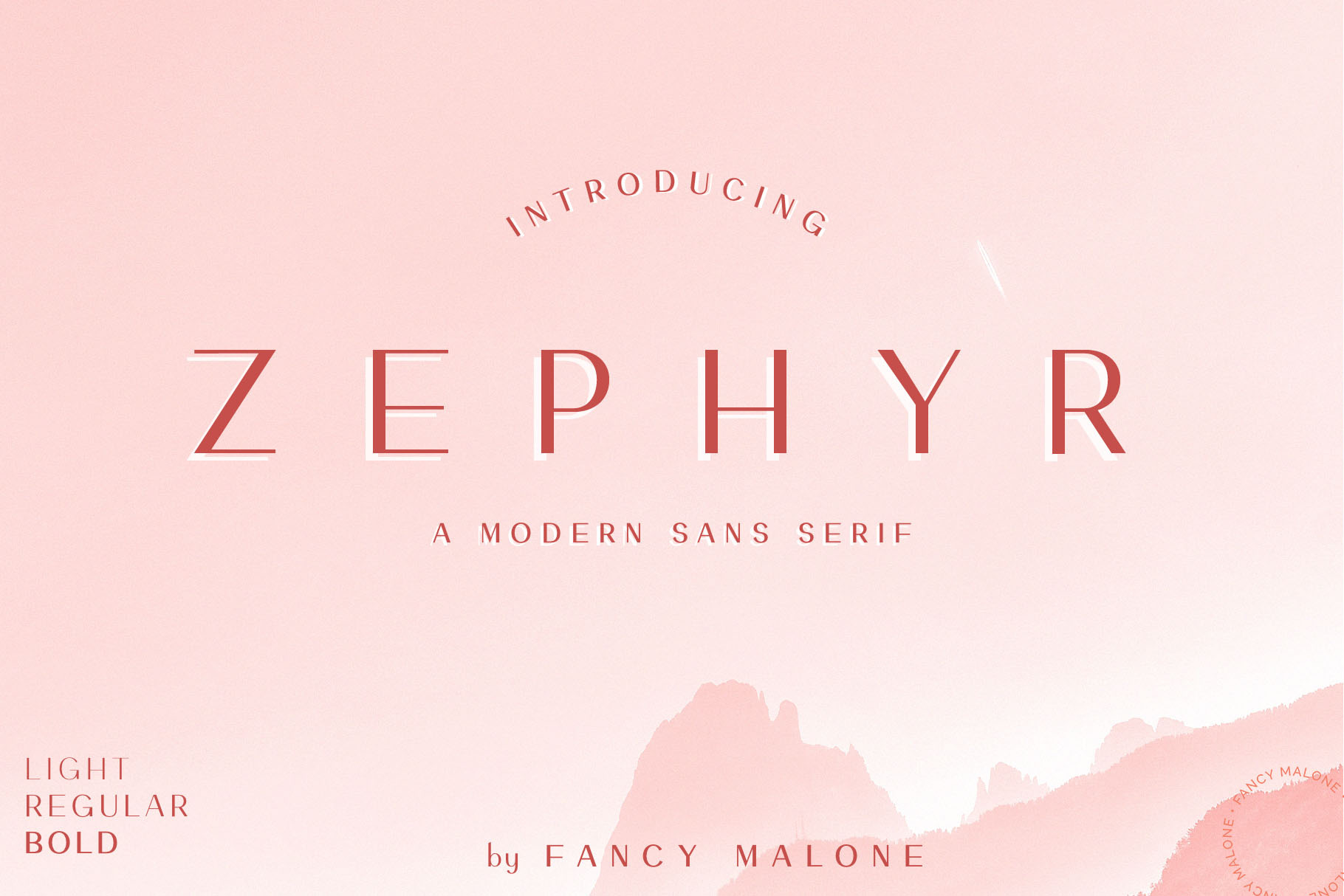
ZEPHYR Sans Serif Font
Introducing Zephyr, a modern and elegant sans serif. I designed Zephyr to be easy to use, bringing a bit of personality while keeping the look minimalistic and modern. Zephyr works beautifully for logos, branding, and headlines - I hope you love using it as much as I loved designing it!